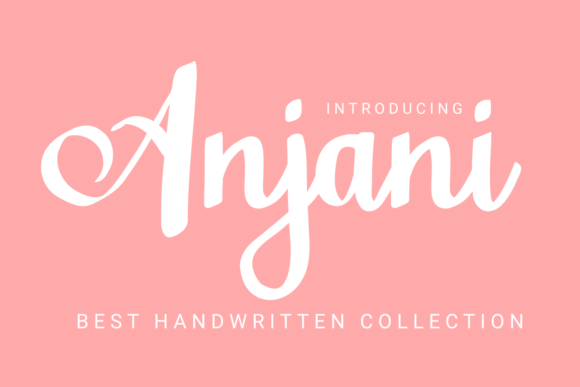
The Perfect Blend of Elegance and Modernity: Introducing Anjani Font
There’s nothing quite like the thrill of creating something beautiful from scratch. You’re brainstorming ideas, sketching out concepts, and pouring your heart into every detail. As you work, you start to envision the perfect font to bring your design to life. That’s where Anjani Handlettering comes in – an elegant script font designed to add a touch of sophistication to your projects.
With its balanced and varied strokes, Anjani Font is the perfect choice for designers looking to create visually appealing and polished designs. Whether you’re working on a branding project, a wedding invitation, or a marketing campaign, this font is sure to elevate your work and leave a lasting impression. Its versatility and timeless beauty make it a valuable addition to any designer’s toolkit.
Anjani Font Key Features
- Font Style: Anjani is a beautiful, elegant script font.
- Character Set: The font includes a wide range of characters, including Latin, Cyrillic, and Greek alphabets, as well as various punctuation marks and symbols.
- Unique Characteristics: Anjani features a unique blend of traditional and modern elements, with intricate flourishes and elegant lines that make it perfect for creating beautiful, eye-catching designs.
Anjani Font Review
I recently had the chance to work with the Anjani font, and I must say it’s been an interesting experience. ✨ The first thing that caught my attention was the unique, hand-drawn feel it brings to any design project. The intricate details and ornate flourishes are reminiscent of traditional Indian typography, which adds a touch of cultural authenticity.
The Anjani font is perfect for projects that require a sense of elegance and sophistication. It’s ideal for creating invitations, business cards, and other materials that demand a touch of luxury. ✨ The font’s versatility also makes it suitable for a wide range of industries, from fashion to healthcare.
- ⚠️ Limited character set: The Anjani font has a relatively small character set, which may not be suitable for projects that require a lot of text.
- ⚠️ Not ideal for body text: Due to its ornate design, the Anjani font is not the best choice for body text, as it can be difficult to read.
Overall, I would give the Anjani font 4 out of 5 stars. While it excels in certain areas, its limitations hold it back from being a truly exceptional font. With a little creativity and planning, however, the Anjani font can be a valuable addition to any designer’s toolkit.
For best results, use the Anjani Font in titles, headings, and body text to create a visually appealing and cohesive design. This font is particularly well-suited for:
- Artistic and creative projects
Alternatives to Anjani Font
Lato Font is a modern sans-serif typeface designed by Łukasz Dziedzic. It is perfect for use in digital products, apps, and websites where a clean and minimalist look is desired. Lato Font is more versatile than Anjani Font and can be used for both headings and body text.
Comparison: Lato Font has a more geometric and uniform feel compared to Anjani Font, which has a more rounded and friendly feel. While Anjani Font is ideal for creative and artistic projects, Lato Font is better suited for modern and minimalist designs.
Montserrrat Font is a sans-serif typeface designed by Julieta Ulanovsky. It is inspired by the urban landscape of Buenos Aires and is perfect for use in digital products, apps, and websites where a bold and edgy look is desired. Montserrat Font is more versatile than Anjani Font and can be used for both headings and body text.
Comparison: Montserrat Font has a more aggressive and bold feel compared to Anjani Font, which has a more rounded and friendly feel. While Anjani Font is ideal for creative and artistic projects, Montserrat Font is better suited for modern and edgy designs.